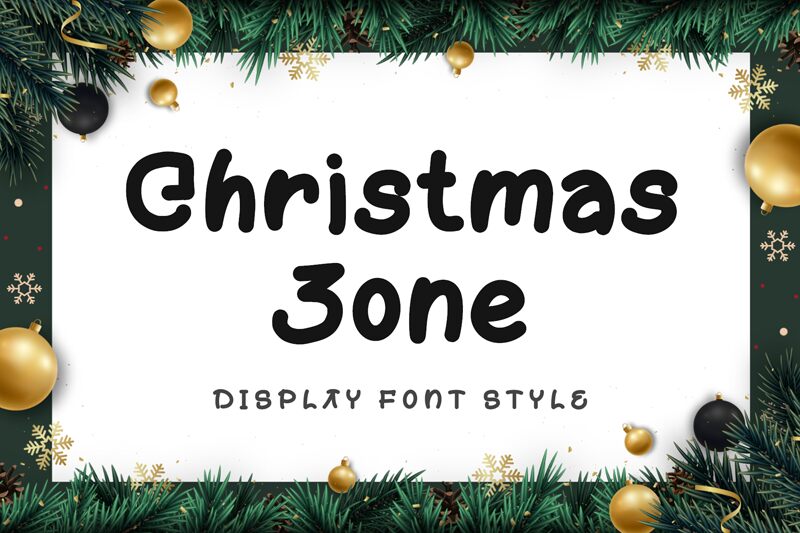
Christmas Zone Display font by Yoga Letter presents itself with rounded shapes and smooth lines, creating a casual, friendly, and modern look. This free font was designed to bring a whimsical and inviting atmosphere, especially to displayed designs. The designer put in the work to create an approachable and versatile product that can be suitable across numerous different projects. It can be described as decorative, fun, and lighthearted which makes it an exciting design choice.
The decorative touch of Christmas Zone Display will be ideal for cards and invitations of all types, including the delicate wedding or baby shower invitations. Use it also on wireframes and UI designs for apps and games or on packaging labels for a more inviting look. Names of establishments such as diners and coffee shops, among others can count on the casual look that they intend to show.